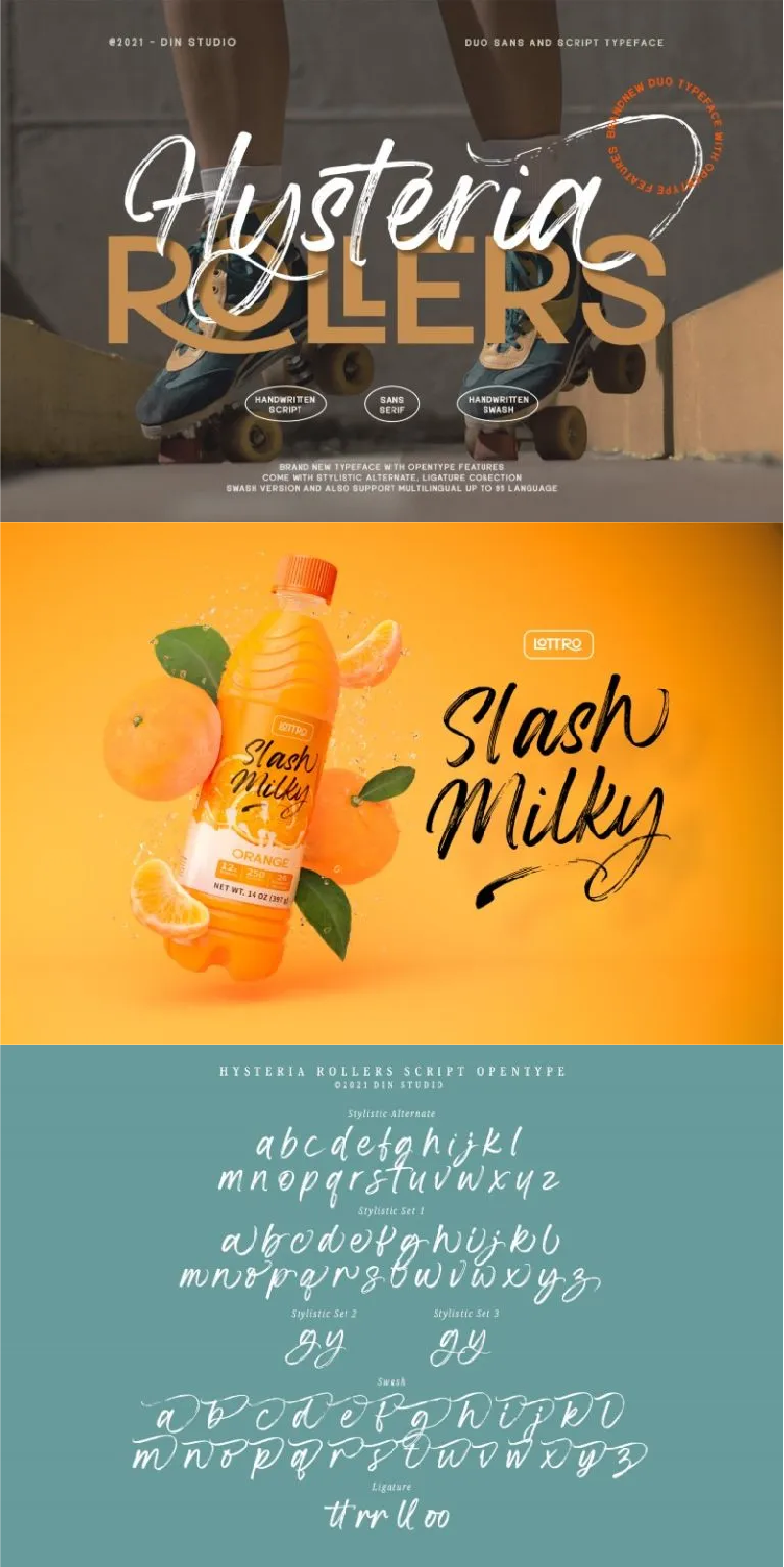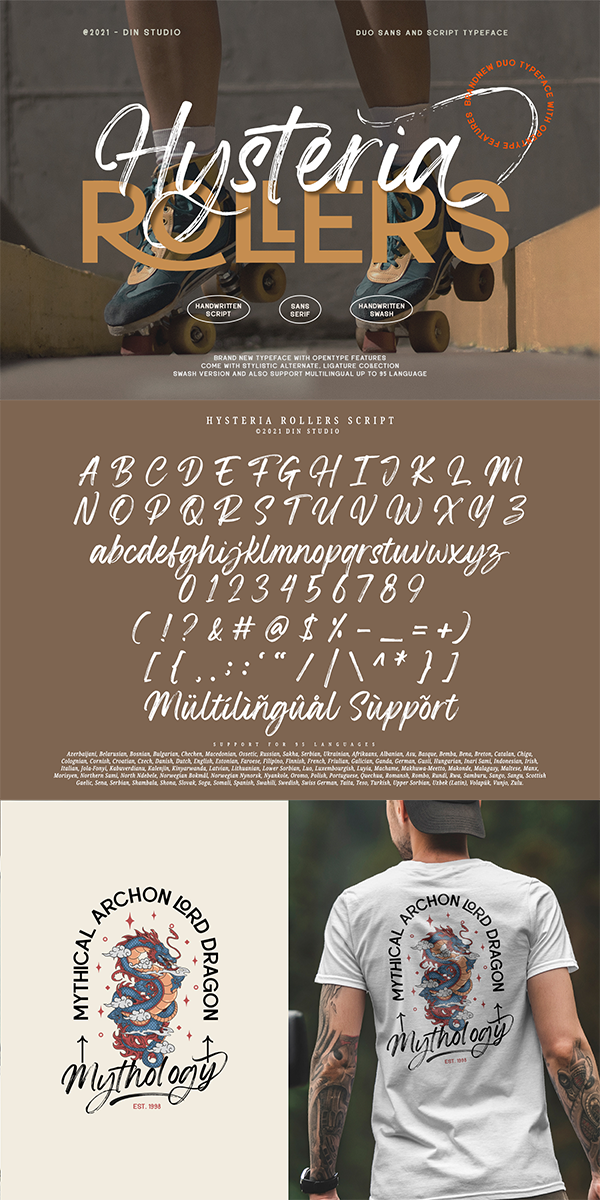
Hysteria Rollers Font
About Hysteria Rollers
Hysteria Rollers is a fantastic font duo. The duo consists of an uppercase sans serif font accompanied by a gorgeous handcrafted script brush font that works together in a perfect harmony. Designed primarily as a captivating font to add the right amount of modernity and style. This font duo is an excellent choice to ensure a great font match for your designs and projects!
The font is perfect for diy projects, brandings, greeting cards, scrapbookings, beautiful quotes, fun packaging designs, posters, invitations and more. Our font always includes Multilingual Supports to make your branding reach a global audience. See the previews above to get some inspiration on how you can use them.